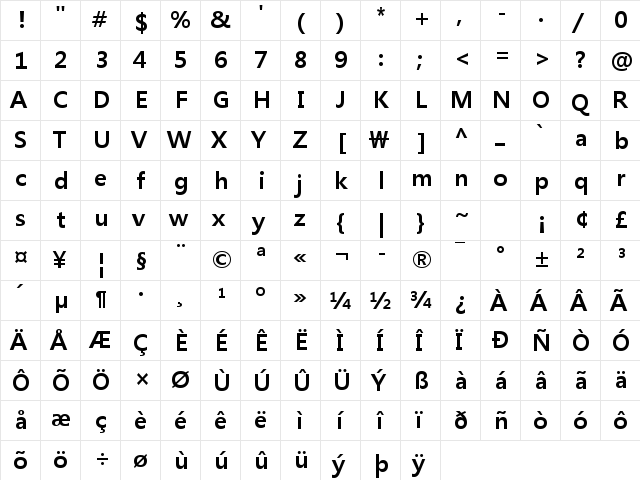
Malgun Gothic Bold
| Foundry | Microsoft Corporation |
| Designer | Kyoung-bae Lee; Daekwon Kim |
Design Context for Malgun Gothic Typeface
Malgun Gothic has the quiet confidence of well-executed sans-serif typography: versatile, unobtrusive, and dependable at any size. Its bold stroke weight gives it real presence on the page.
Well-suited to navigation labels, product packaging, and anywhere legibility at scale is essential.
Font Pairing: Use Malgun Gothic for headlines alongside a lighter-weight sans or serif for body copy to establish clear visual hierarchy.
Pro Tip: Use Malgun Gothic for UI labels, navigation, and short-form body copy where clean legibility is the priority.